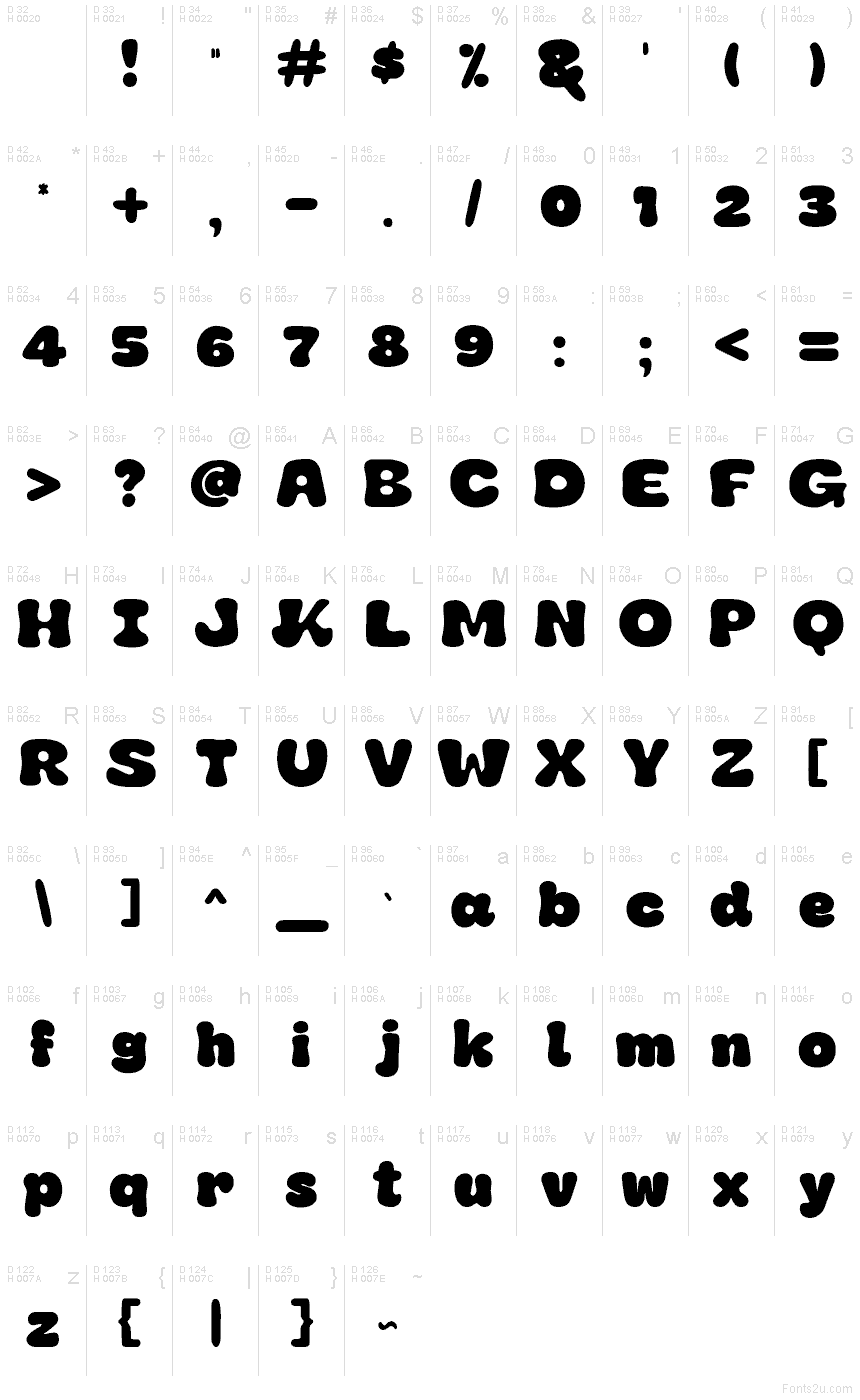
Candy Planet
Candy Planet font by BlackFridayFont FMF is a free cartoon display typeface that looks like it’s been piped from a frosting bag or shaped from soft gummies. Its chunky, rounded letters feel squishy and bouncy, with tight spacing that keeps words reading as fun, bubbly shapes rather than stiff text. The solid, inky black forms hold up at small sizes but really come alive when blown up big and bold.
Using Candy Planet, you can instantly dial up the sweetness for kids’ party invitations, candy packaging, game titles, playful logos, YouTube thumbnails, or classroom posters. This free font shines when you let it lead as the main wordmark, then pair it with a clean, simple sans serif for any supporting text to keep things readable and bright.